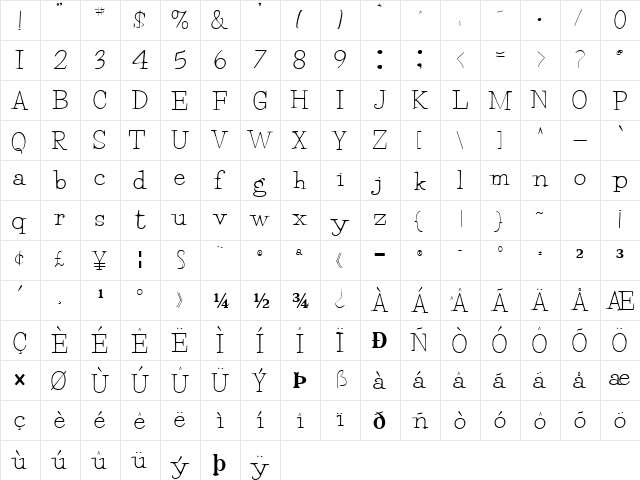
Twiggy86 Regular
Design Context for Twiggy86 Typeface
Twiggy86 takes a measured approach to typography — its balanced proportions and neutral character make it a reliable workhorse for both digital and print work.